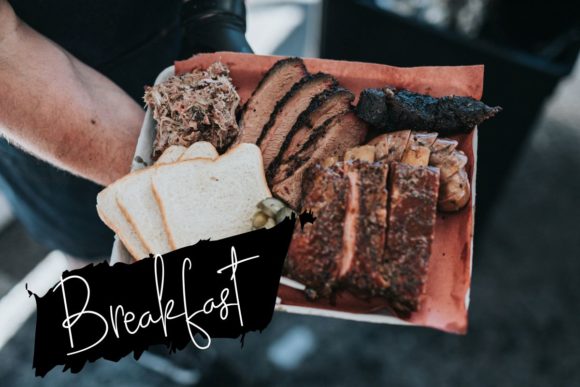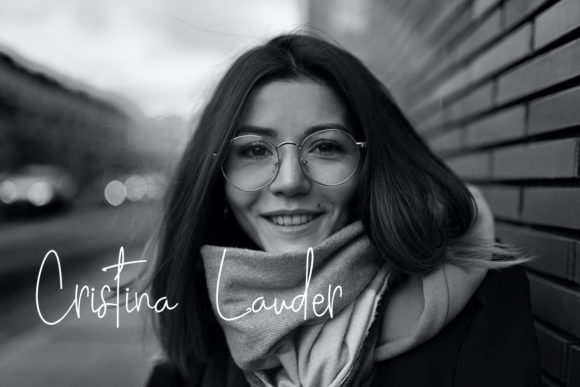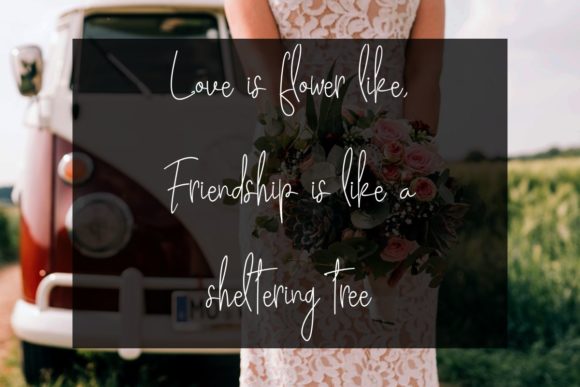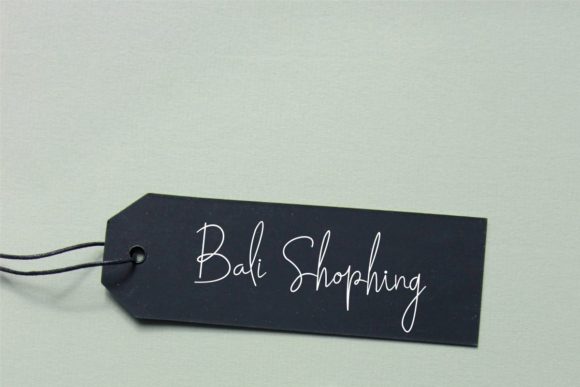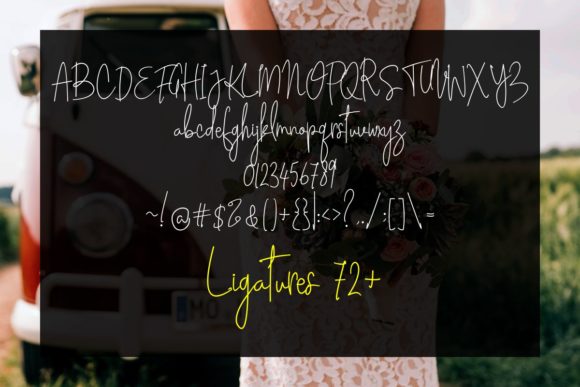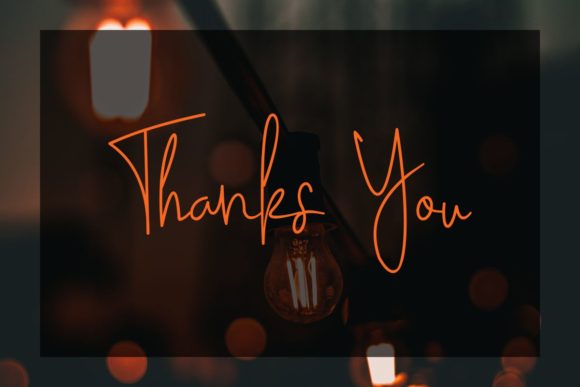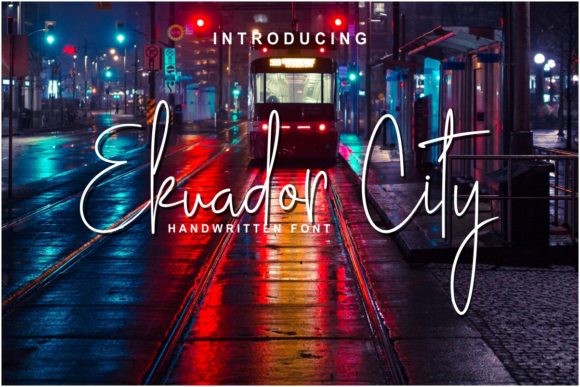
Ekuador City Font: The Ultimate Handwritten Font for Creative Projects
Are you looking for a font that exudes a sense of relaxation and effortlessness? Look no further than the Ekuador City Font. This adorable handwritten font is perfect for designers and crafters who want to add a touch of authenticity to their projects. In this article, we’ll dive into the world of Ekuador City Font and explore its features, uses, and benefits.
What is Ekuador City Font?
Ekuador City Font is a cute handwritten font that boasts an incredibly relaxed and effortless style. Its authentic feel makes it perfect for a wide range of creative projects, from wedding invitations to social media posts. The font’s unique charm is sure to capture the hearts of designers and crafters alike.
Features of Ekuador City Font
- Handwritten style: Ekuador City Font is a handwritten font that mimics the look of natural handwriting. Its imperfections and quirks make it look authentic and charming.
- Relaxed and effortless: The font’s relaxed style makes it perfect for projects that require a laid-back vibe.
- Versatile: Ekuador City Font can be used for a wide range of projects, from wedding invitations to social media posts.
- Easy to read: Despite its handwritten style, Ekuador City Font is easy to read and understand.
Uses of Ekuador City Font
Ekuador City Font is a versatile font that can be used for various creative projects. Here are some ideas to get you started:
- Wedding invitations: Create beautiful and unique wedding invitations that set the tone for the big day.
- Stationary art: Use Ekuador City Font to create stunning stationary art, such as greeting cards, thank-you cards, and postcards.
- Social media posts: Add a touch of personality to your social media posts with Ekuador City Font.
- Greeting cards: Create cute and personalized greeting cards for special occasions.
Benefits of Using Ekuador City Font
Using Ekuador City Font can bring numerous benefits to your creative projects. Here are some of the advantages of using this font:
- Unique and authentic look: Ekuador City Font’s handwritten style gives it a unique and authentic look that sets it apart from other fonts.
Tips for Using Ekuador City Font
Here are some tips to help you get the most out of Ekuador City Font:
- Pair it with other fonts: Experiment with pairing Ekuador City Font with other fonts to create a unique look.
- Use it for headlines and body text: Use Ekuador City Font for both headlines and body text to create a cohesive look.
- Experiment with colors: Try out different colors to find the perfect match for your project.
- Keep it simple: Don’t overdo it – keep your design simple and elegant to let the font shine.
Ekuador City Font is a charming handwritten font that’s perfect for designers and crafters who want to add a touch of authenticity to their projects. Its relaxed and effortless style makes it ideal for a wide range of creative projects, from wedding invitations to social media posts. With its ease of use, versatility, and affordability, Ekuador City Font is a must-have for anyone looking to create stunning projects.